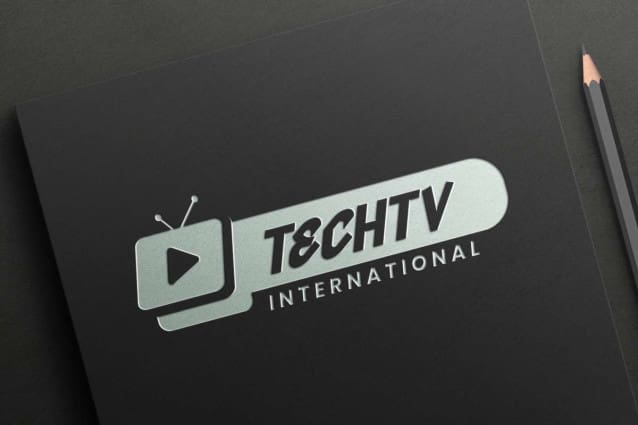
Ultra Marathon Font
Ultra Marathon Font is a sport display font designed by NoahType Studio. This font is made for those of you who want a sporty impression on the design and more interesting! It would be perfect choice for many industries, such as fashion, accessories, advertisement, sport tools, café, event organizer, furniture, handicrafts, printing, publishing, and more!
Ultra Marathon Font include full set of Uppercase and Lowercase Basic Characters, Numerals and Punctuation. This font will carry an energy that steals the show and can be used in any designs, such as poster, custom design, business card, label, magazine catalog, label, signage, stationery, sticker, title, watermark, etc.